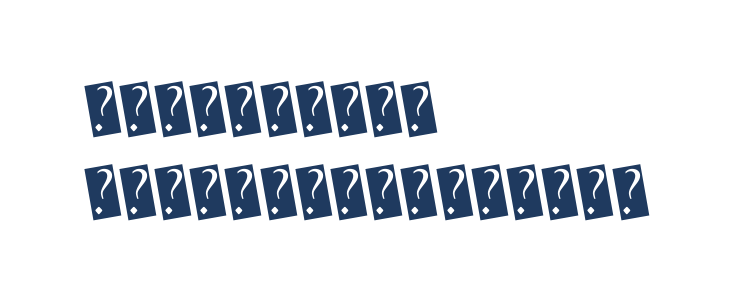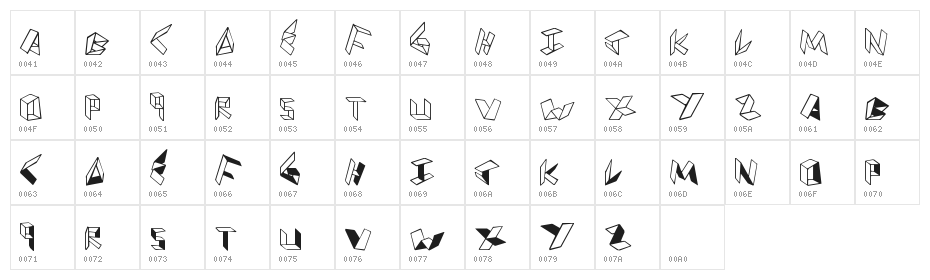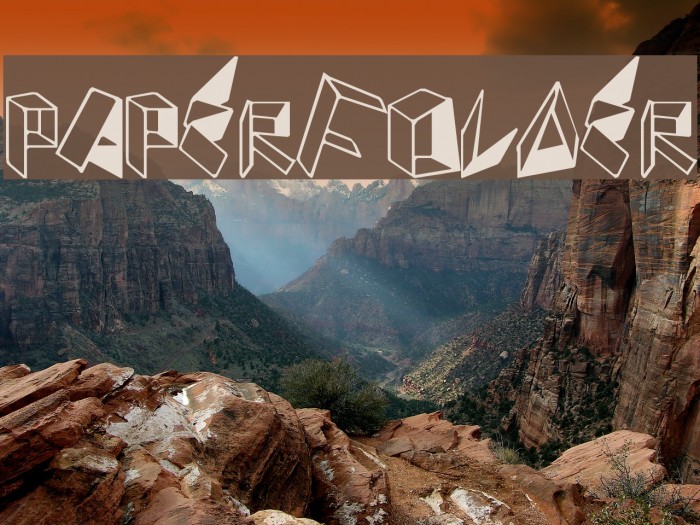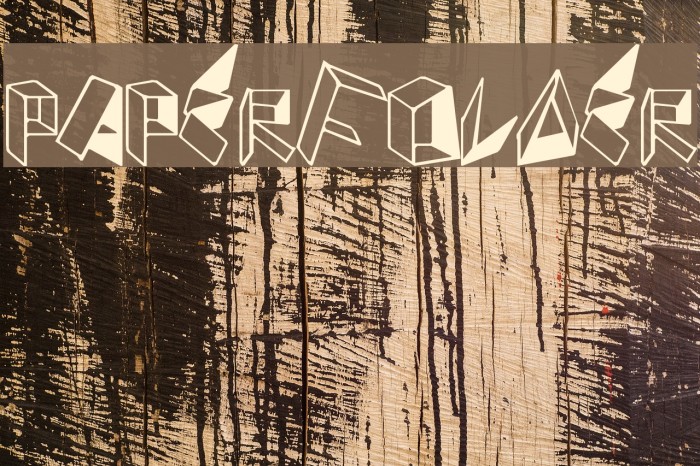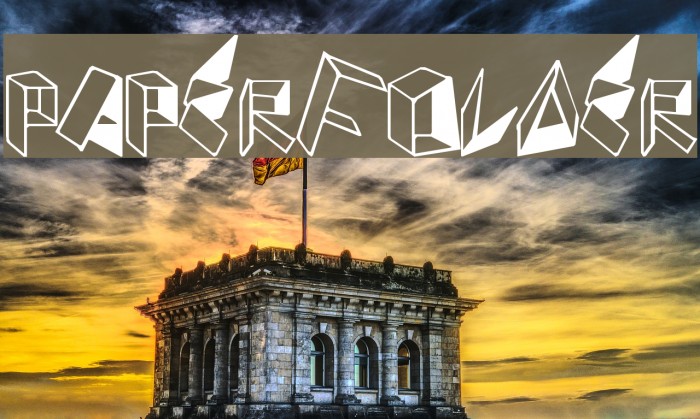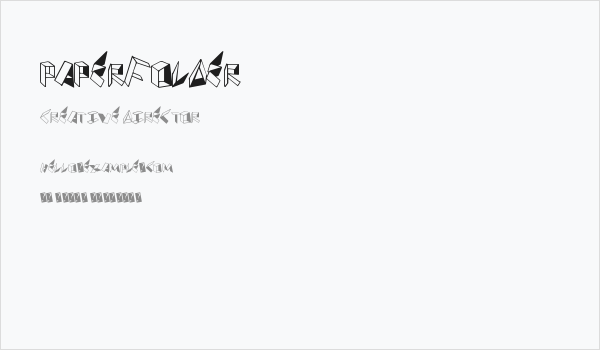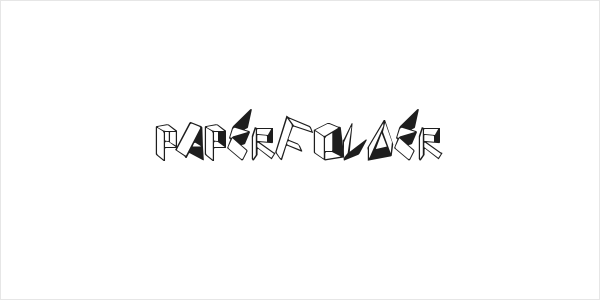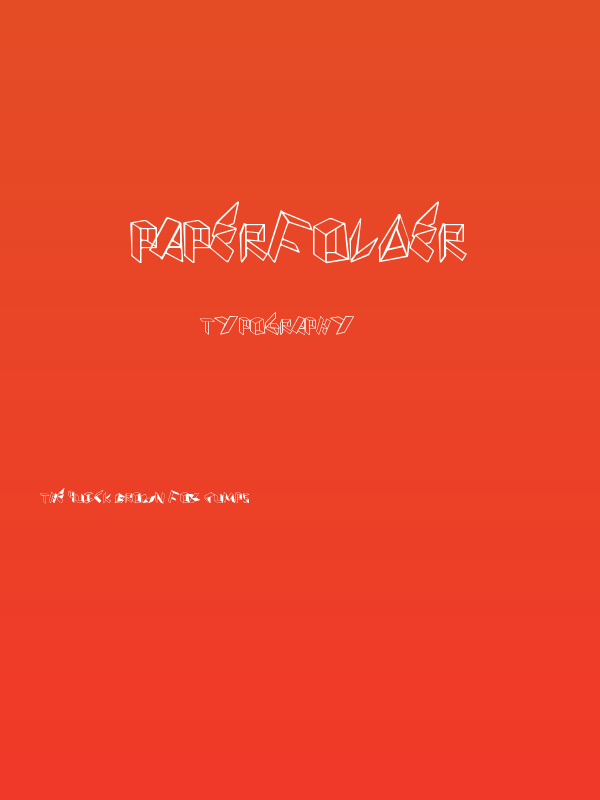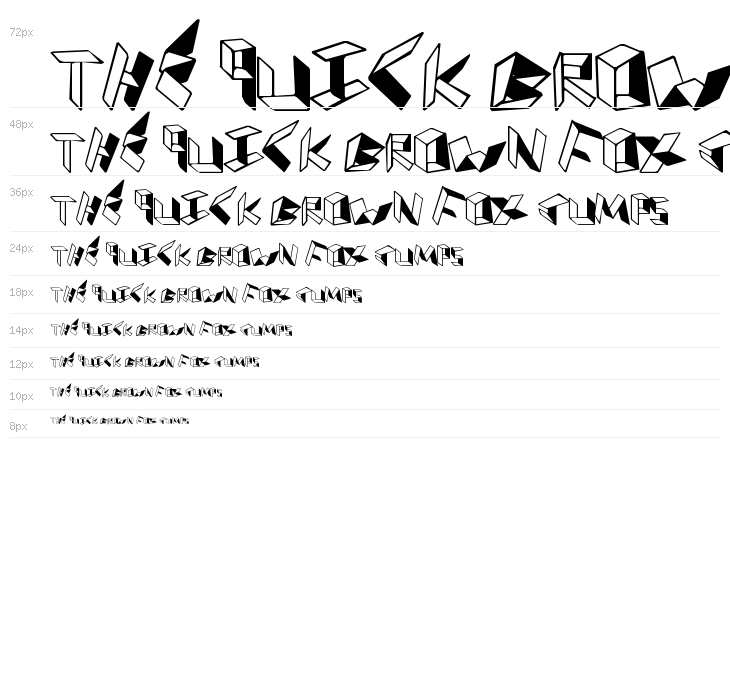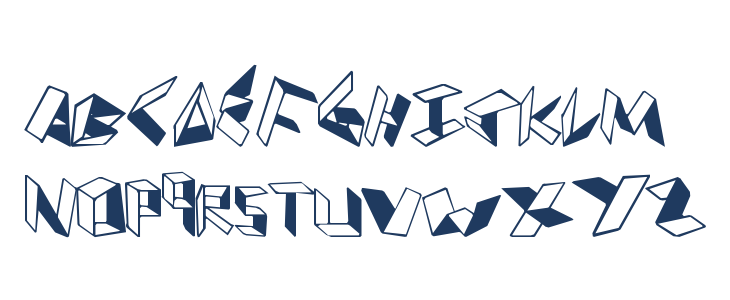
PaperFolder Font
PaperFolder Description
This font features a unique, geometric design that mimics the appearance of folded paper. Each character is constructed with sharp angles and distinct edges, creating a three-dimensional effect. The uppercase and lowercase letters maintain a consistent style, with bold lines and a sense of depth. The font lacks traditional curves, opting instead for a more angular and modern aesthetic. The special characters are represented by question marks, adding an element of mystery and intrigue. This font is ideal for projects that require a bold, eye-catching display with a contemporary twist.
| Proposed Projects | Ideal for modern branding, poster design, and creative packaging. |